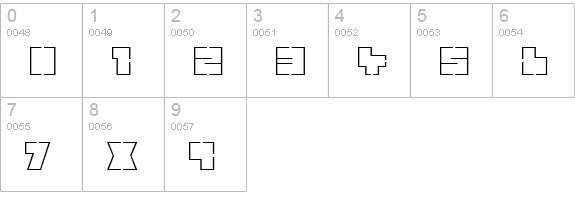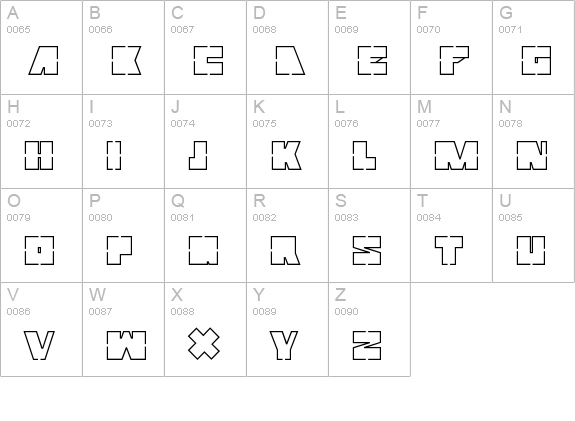
Mutter Font Details
The Mutter font is a stylish and modern typeface that exudes sophistication and elegance. With its sleek lines and clean design, Mutter is perfect for a wide range of design projects, from branding to editorial layouts. This versatile font is free to use, making it a great choice for designers looking to add a touch of class to their work without breaking the bank. You can easily download the Mutter font for free at FontsMarket.com, where you'll find a wide selection of high-quality fonts to suit all your design needs.